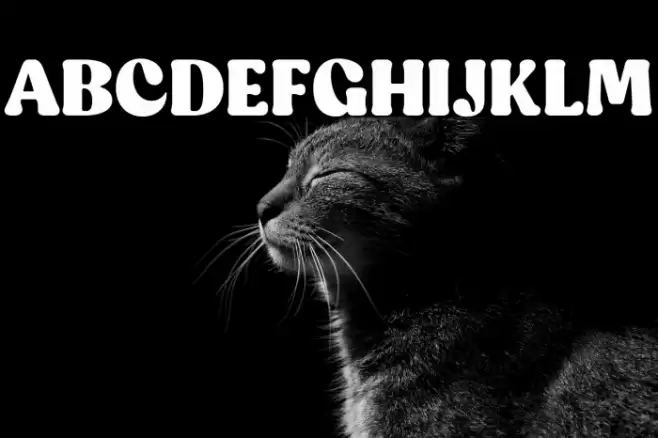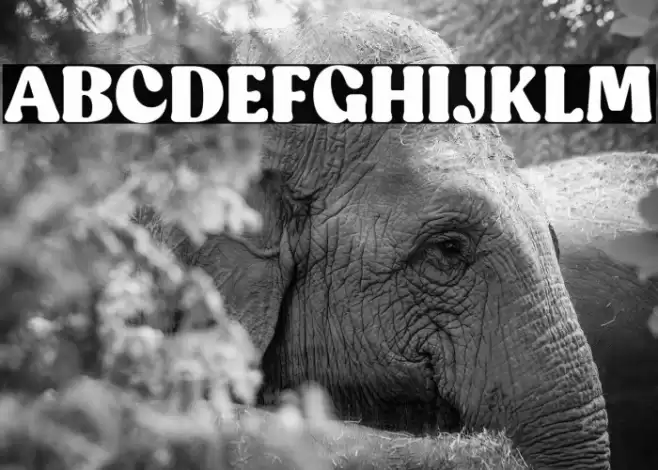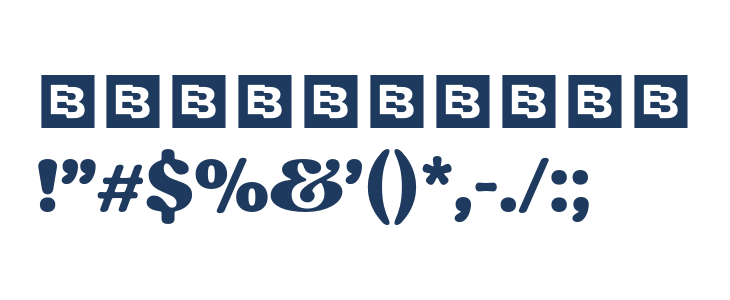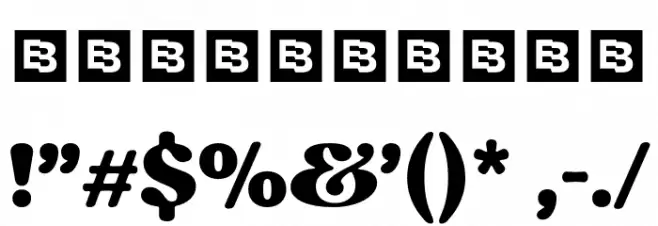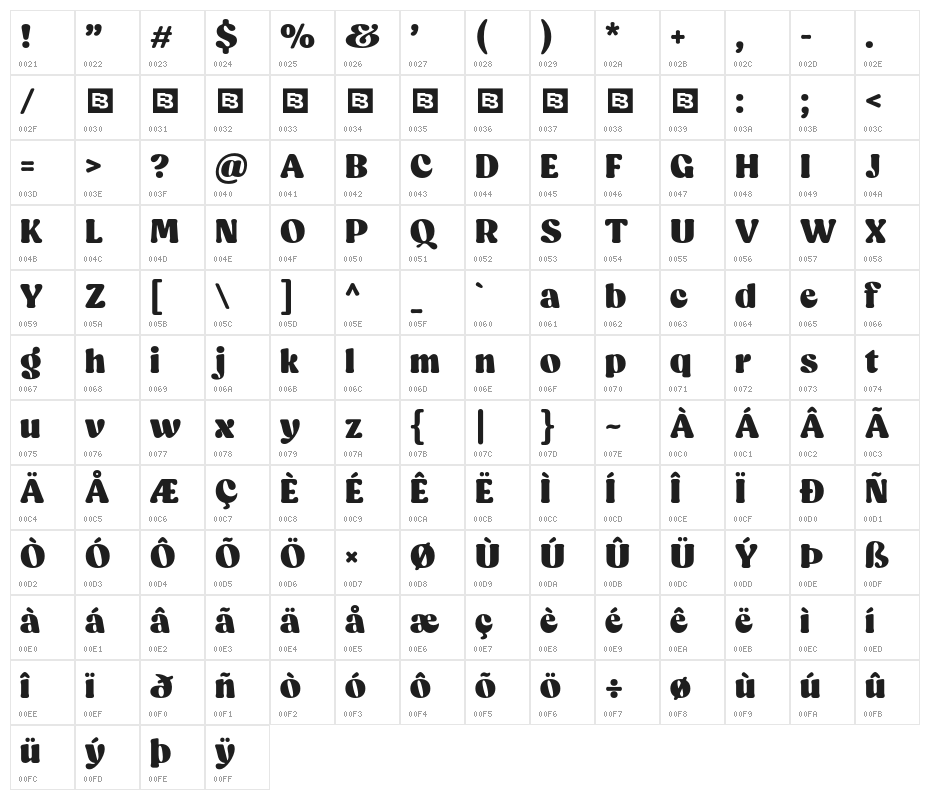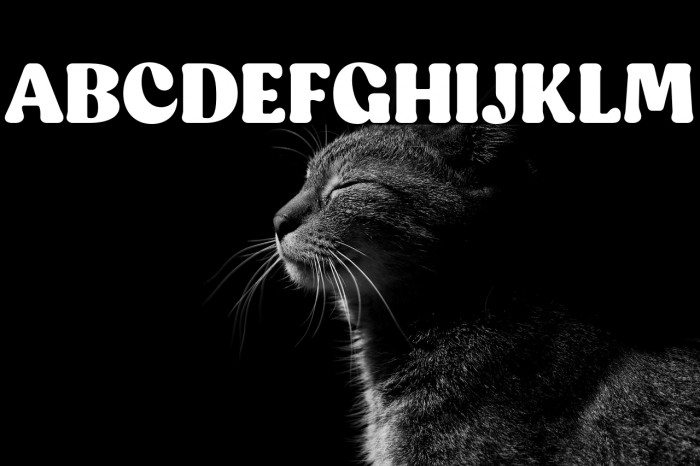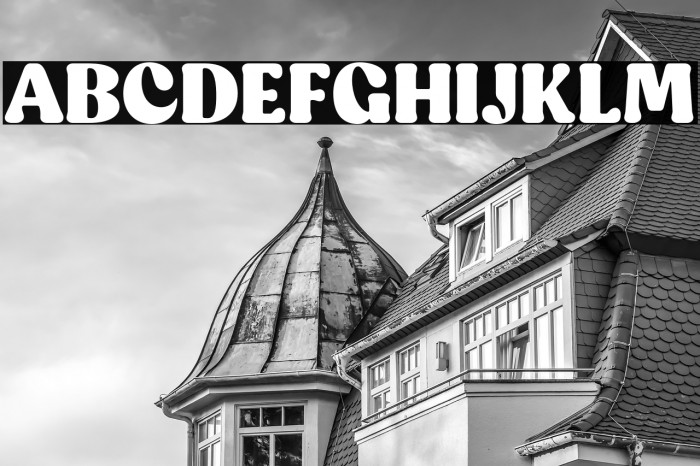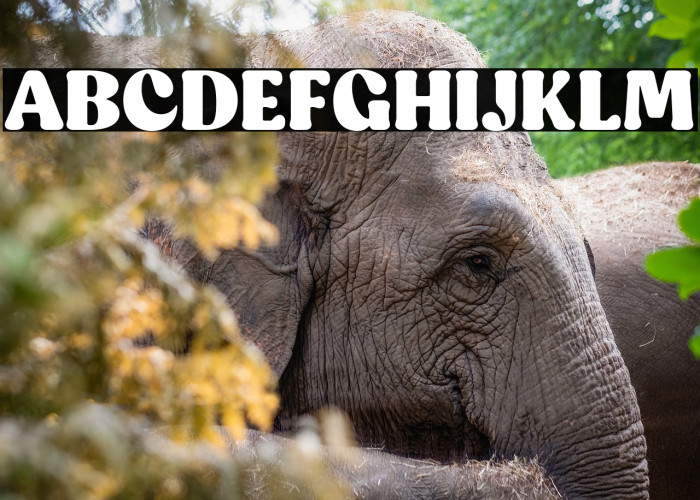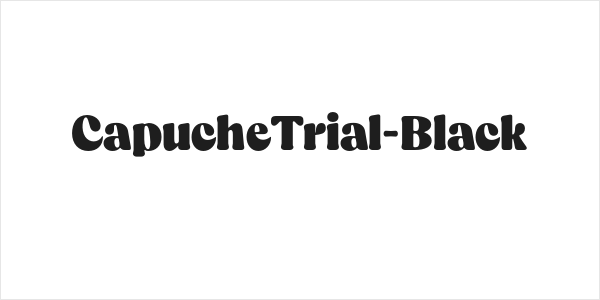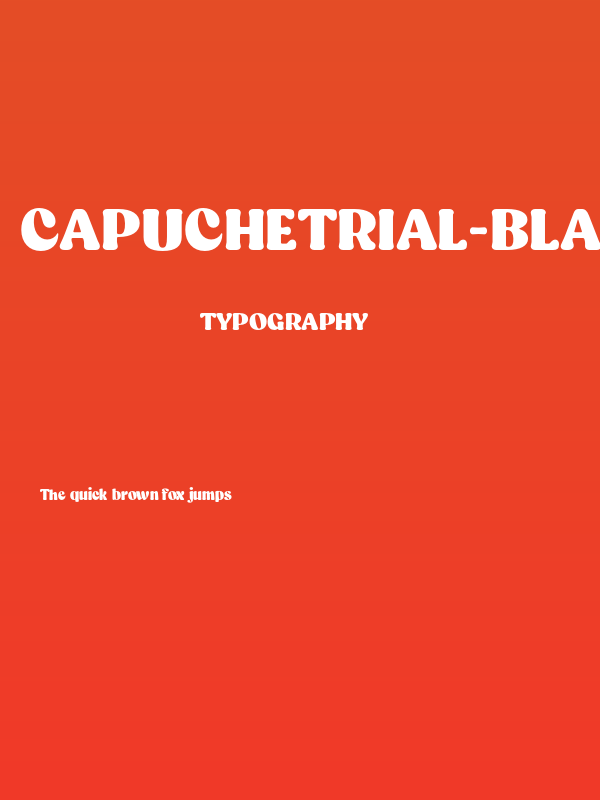
CapucheTrial-Black Font
CapucheTrial-Black Description
This font features bold, rounded characters with a playful and robust appearance. The uppercase letters are particularly striking, with thick strokes and slightly condensed forms that give them a strong presence. The lowercase letters maintain the same boldness, with a consistent stroke width that enhances readability. The font includes a variety of special characters and numbers, all designed with the same bold and rounded style. This cohesive design makes it suitable for projects that require a strong visual impact.
A bold, rounded font with a playful and robust appearance from Uncategorized fonts.
- Font: CapucheTrial-Black
- Proposed Projects: Ideal for branding, posters, and headlines where a strong, impactful font is needed.